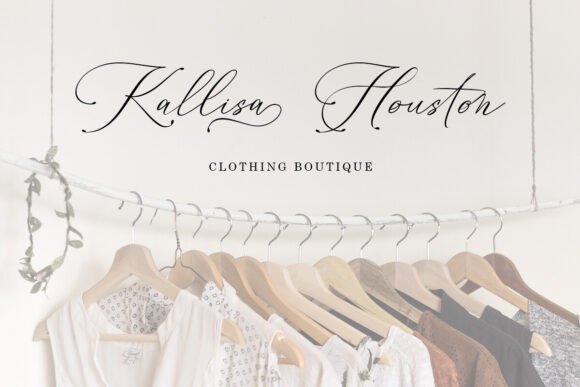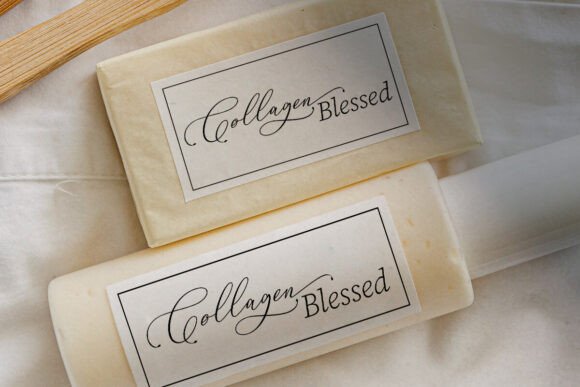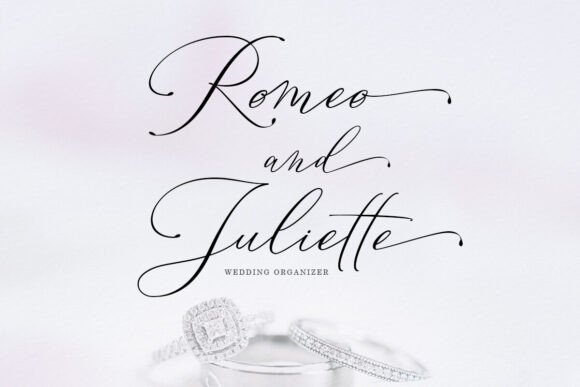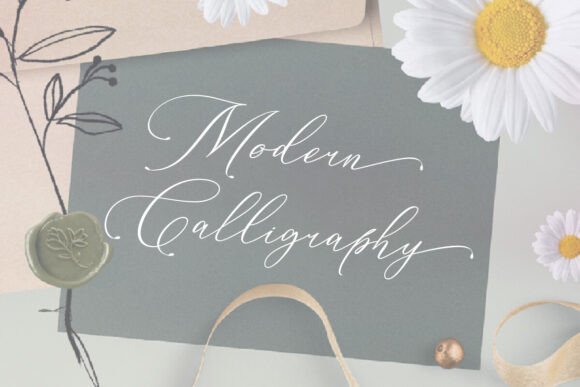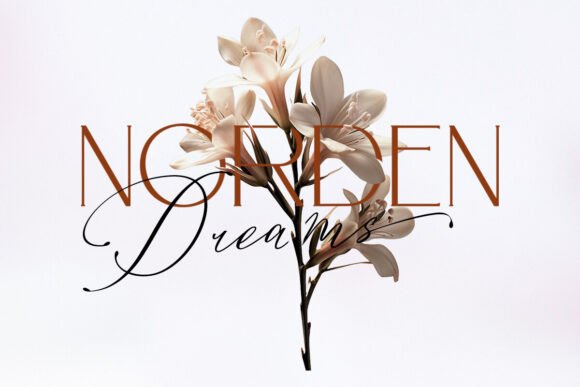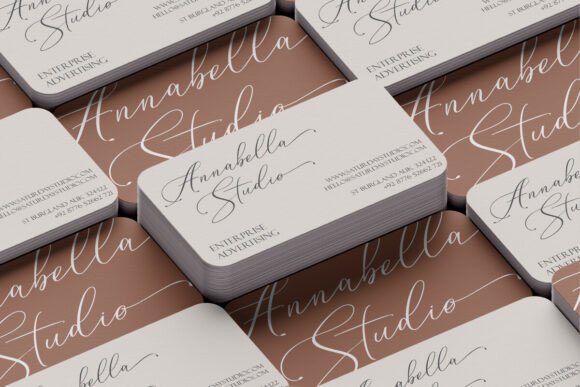
Introduction to Konesta Font
Have you ever been stuck trying to create the perfect logo or invitation for a client, only to find yourself spending hours tweaking the font to get that perfect, handwritten look? You’re not alone. As designers, we’ve all been there – searching for the perfect font to elevate our creative project and make it truly special.
That’s where the Konesta Font comes in. This stunning modern calligraphy script font is designed to mimic the clean and tidy handwriting we all strive for. With its fabulous beginning and ending lowercase swashes, Konesta Font is the perfect design resource for any project that requires a touch of elegance and sophistication.
Key Features of Konesta Font
- Designed with a modern aesthetic, perfect for contemporary design projects
Honest Review: Konesta Font
As a designer, I’m always on the lookout for high-quality design resources to elevate my creative projects. Recently, I stumbled upon the Konesta Font, and I’m excited to share my honest review with you.
Here are some things that work well with the Konesta Font:
- ✨ High-quality glyphs and ligatures that make it perfect for both print and digital projects.
- ✨ Transparent background option, which is super handy for creating designs with a clear background.
Now, let’s talk about some limitations:
- ⚠️ Limited language support, which might be a concern for designers working on multilingual projects.
- ⚠️ No bold or italic font weights, which might limit its use in certain design contexts.
Overall, the Konesta Font is a solid addition to any designer’s toolkit. While it has some limitations, its high-quality design and free download make it a great resource for creative projects. I’d definitely recommend it to fellow designers looking for a reliable font to work with.